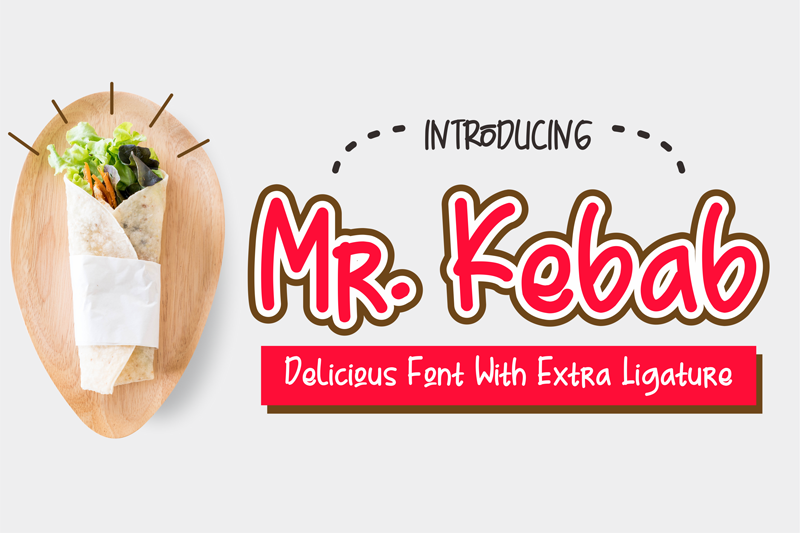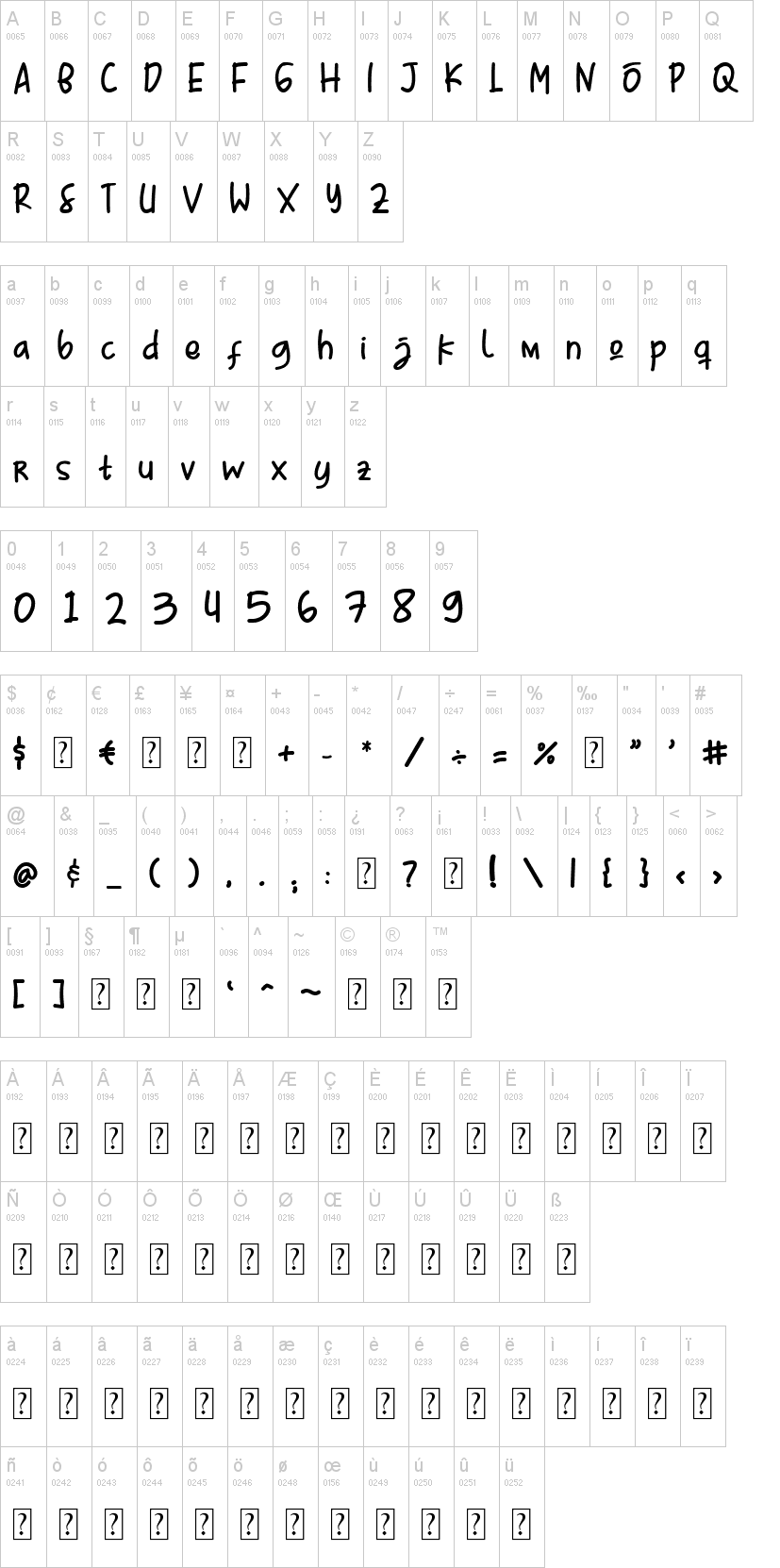
Note of the authorMr. Kebab Delicious Script Font can be applied to many of your precious moments, dont forget there are also alternative ligature that make this font so fun.
There are more additions dashed line that you can enter manually to look different styles and there are dozens of additional doodle & badges completing this font. You can make as posters, titles, quotes, packaging, invitations, brand identity, and many more.